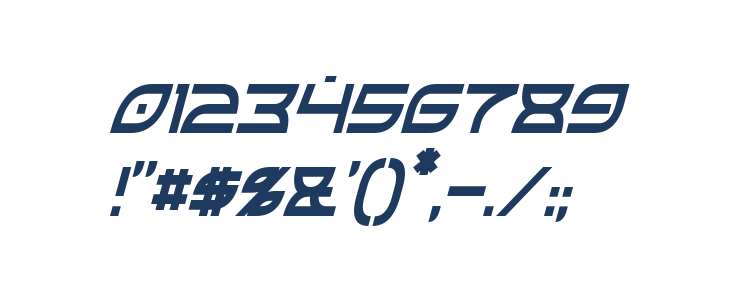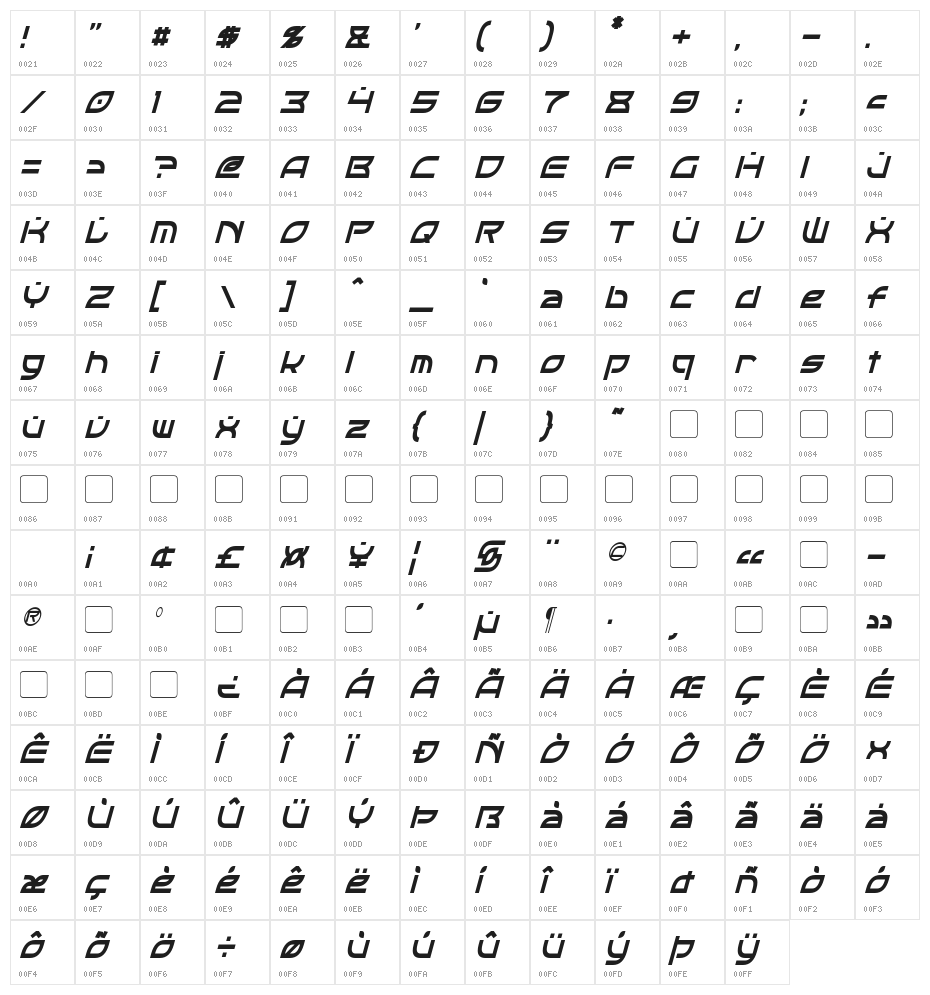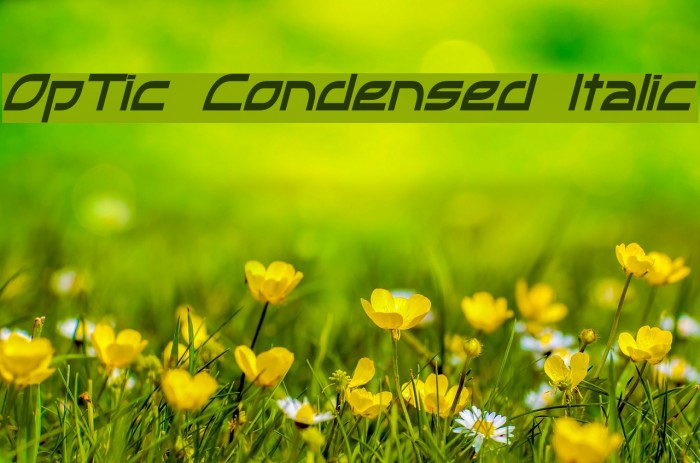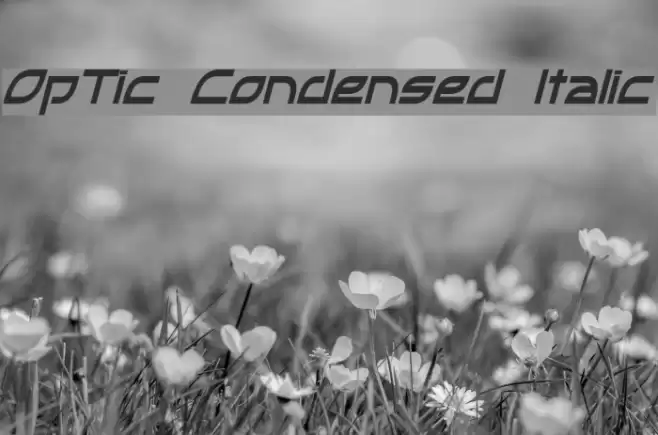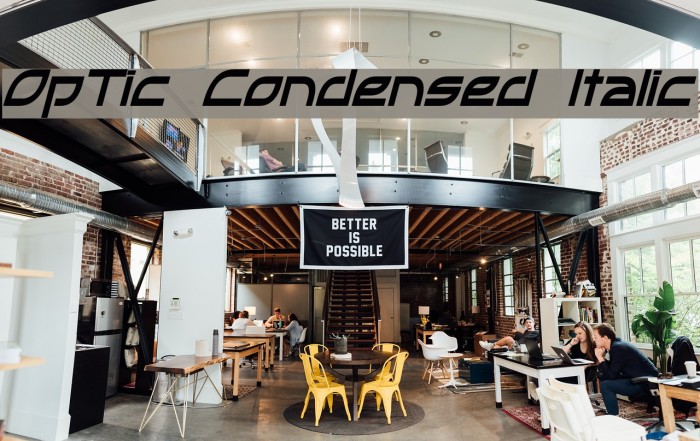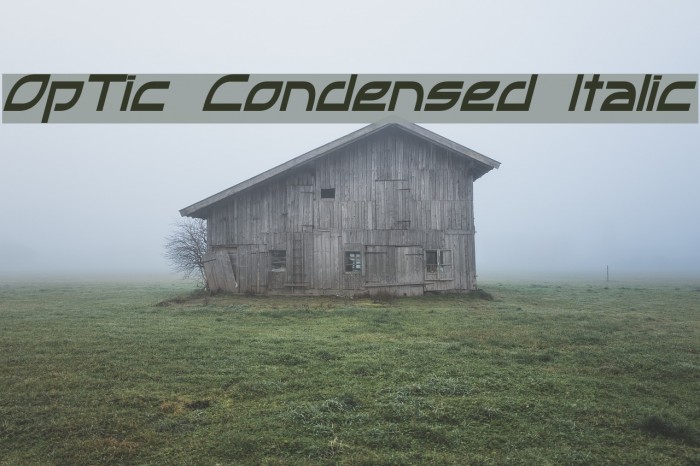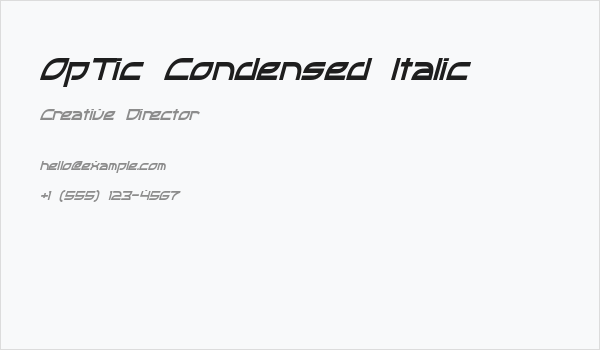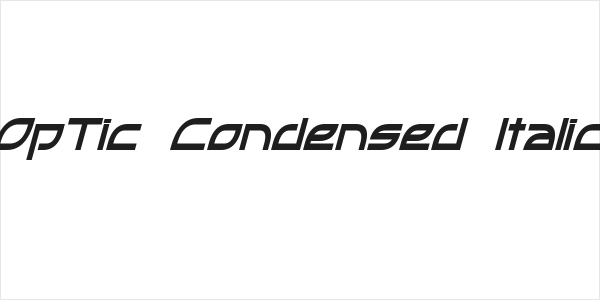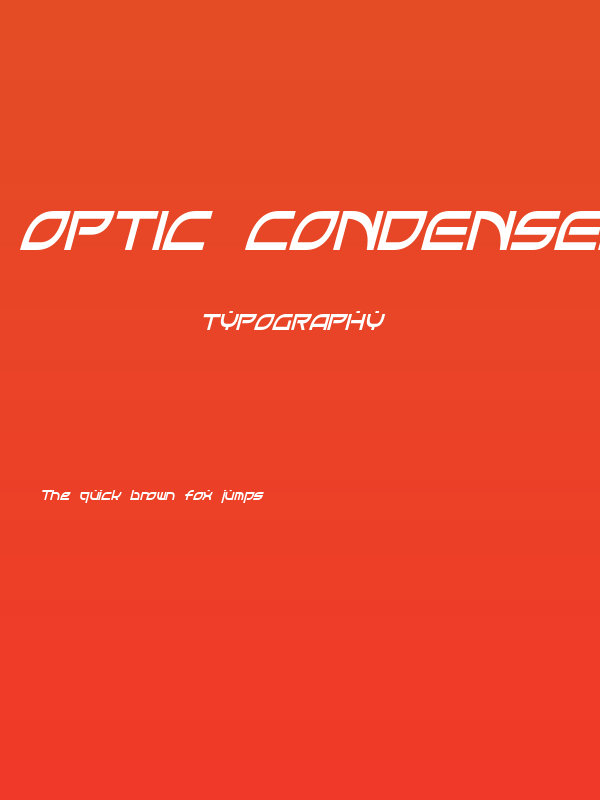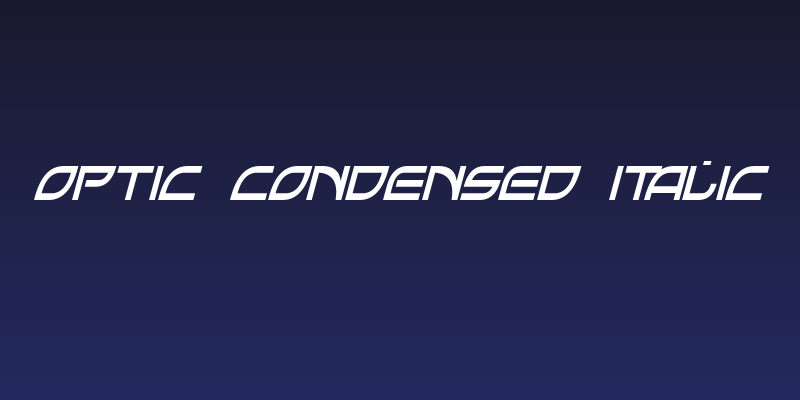
OpTic Condensed Italic Font
OpTic Condensed Italic Description
This font exhibits a sleek, futuristic style with a condensed and italicized form. The characters are sharply angled, giving a sense of motion and speed. The uppercase and lowercase letters maintain a consistent slant, enhancing the dynamic appearance. The numerals and special characters follow the same design principles, ensuring uniformity across all glyphs. The overall aesthetic is modern and tech-inspired, making it suitable for projects that require a cutting-edge look.
| Use Case | Logos, Headlines, Branding |
| Proposed Projects | Ideal for technology branding, sports team logos, video game titles, and sci-fi themed designs. |